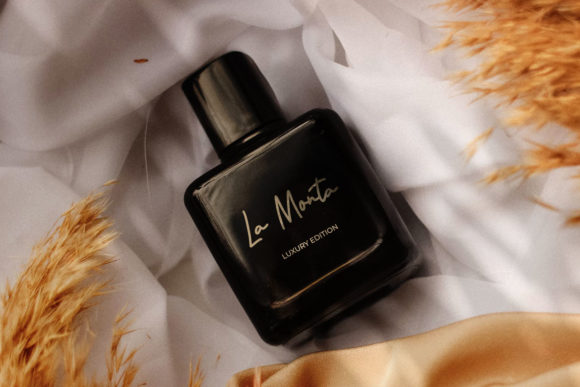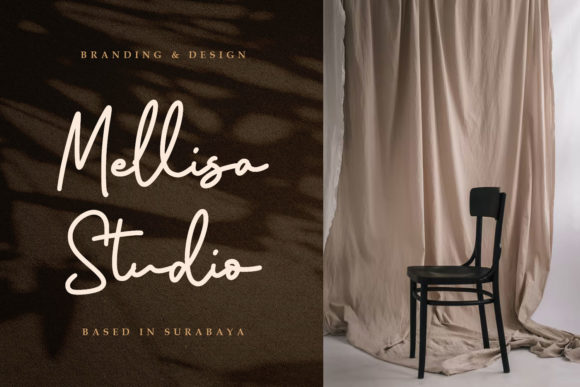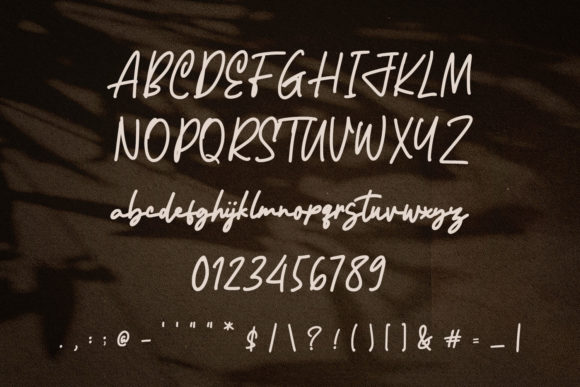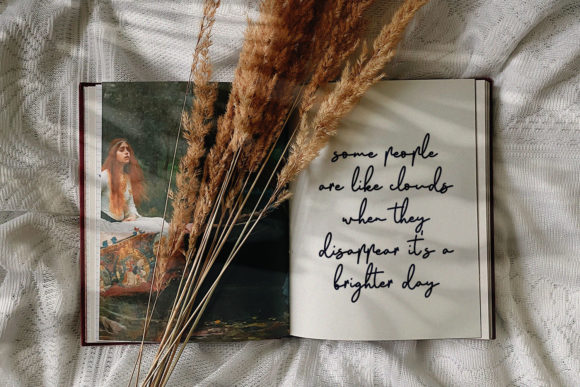
Amellia Geraldine Font
About Amellia Geraldine Font
Introducing “Amellia Geraldine,” a lovely and delicate script font designed to exude elegance and class. This font has been meticulously crafted for individuals seeking a beautiful and refreshing look to enhance their designs.
The charm of Amellia Geraldine lies in its delicate and refined script, which adds a touch of sophistication to any project. Whether used for logos, branding, invitations, stationery, or social media posts, this font brings a sense of beauty and class to your designs.
Picture Amellia Geraldine gracing wedding invitations, creating an air of elegance and romance. Envision it becoming a signature element in your branding, contributing to a timeless and refined visual identity. The font’s delicate strokes and graceful curves ensure that it stands out, making it a versatile choice for various design applications.
In essence, Amellia Geraldine is more than just a font; it’s a design companion that brings elegance and class to your projects. Its delicate script invites you to infuse your creations with a refreshing and beautiful look. Choose Amellia Geraldine to add a touch of sophistication to your designs, turning each project into a timeless expression of refined aesthetics.